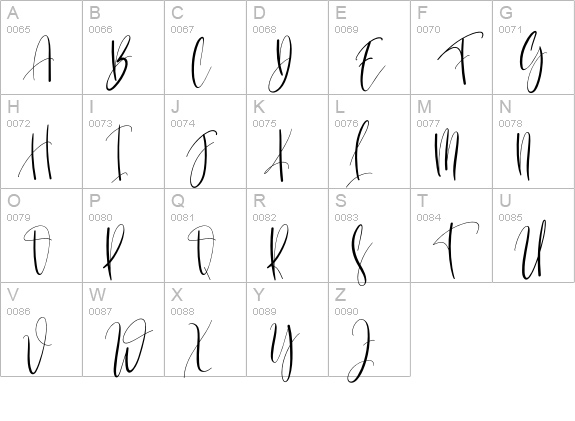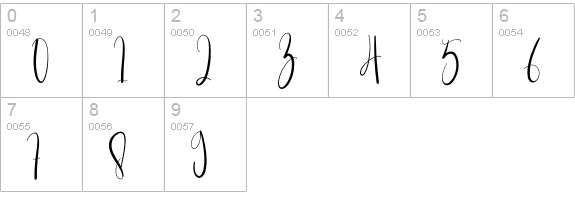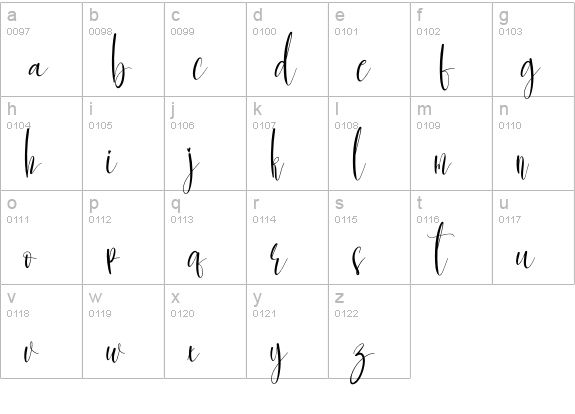
Hallimun Font Details
Hallimun is a free for personal use font in the Script > Handwritten category, designed by scratchones. It has been downloaded 5 times and is available for Windows, Mac and Linux.
Hallimun font is a beautifully crafted typeface that combines elegance with a touch of modernity. Its sleek lines and graceful curves make it perfect for a wide range of design projects, from branding to editorial work. The font exudes sophistication and style, making it a versatile choice for both print and digital applications.